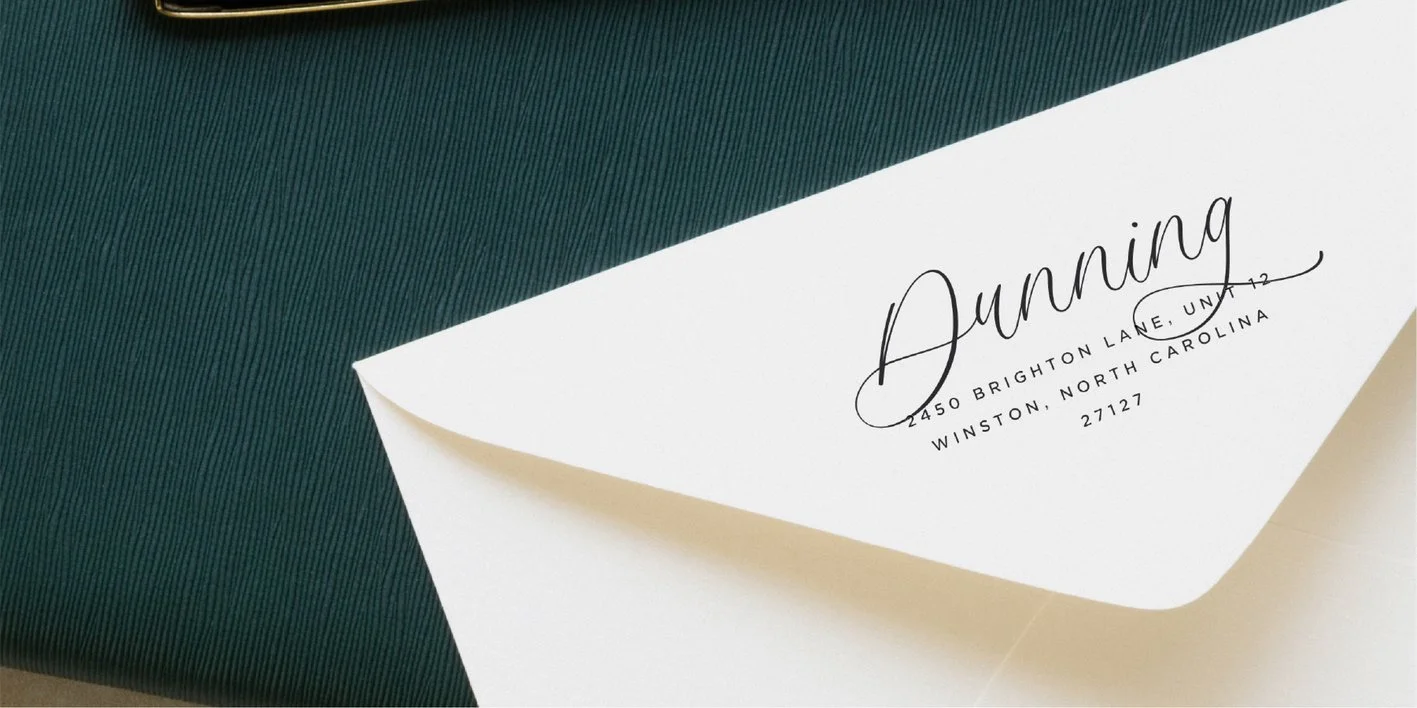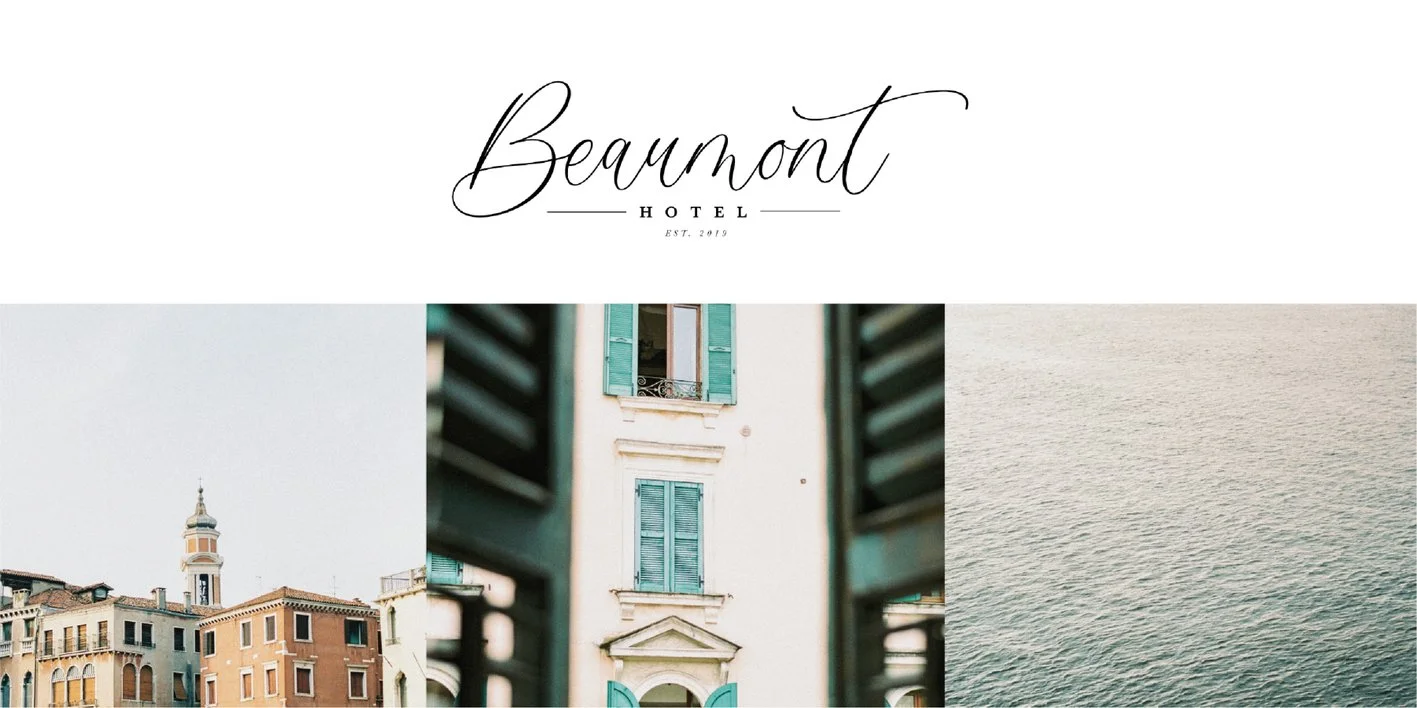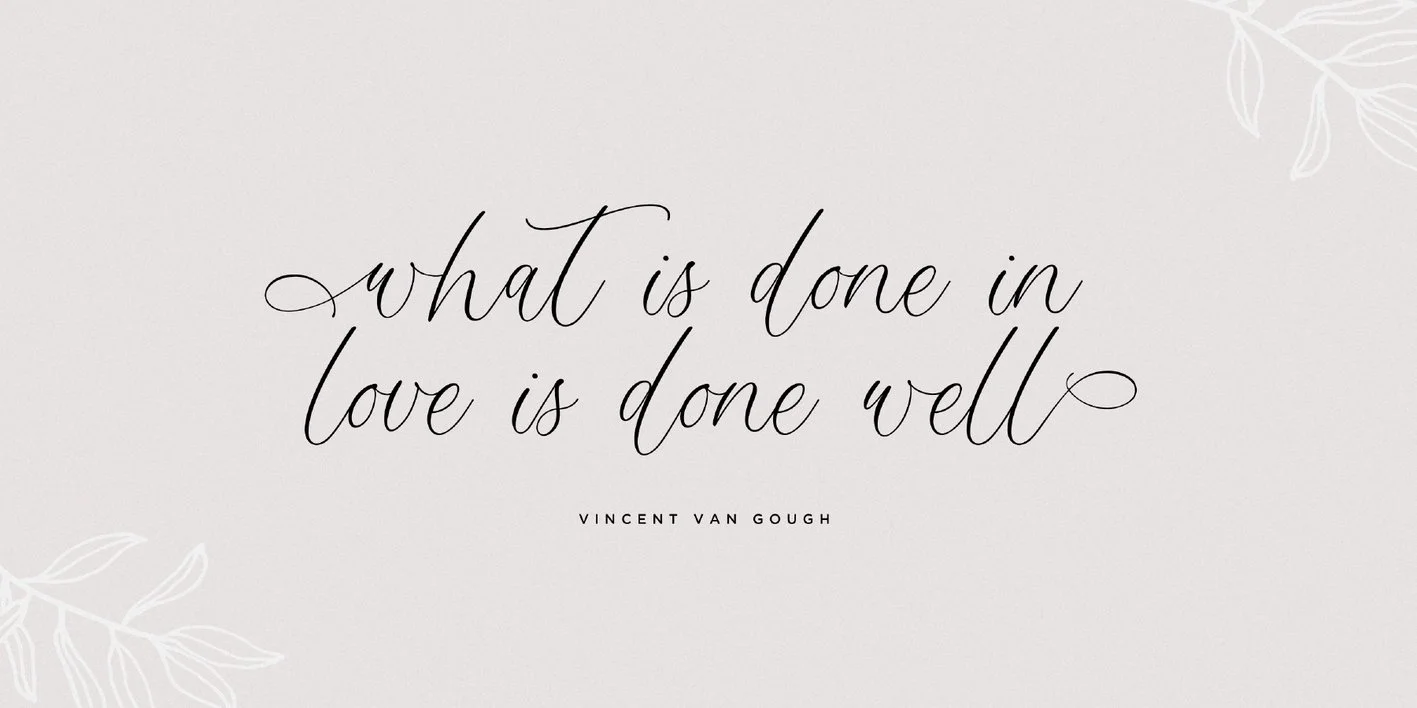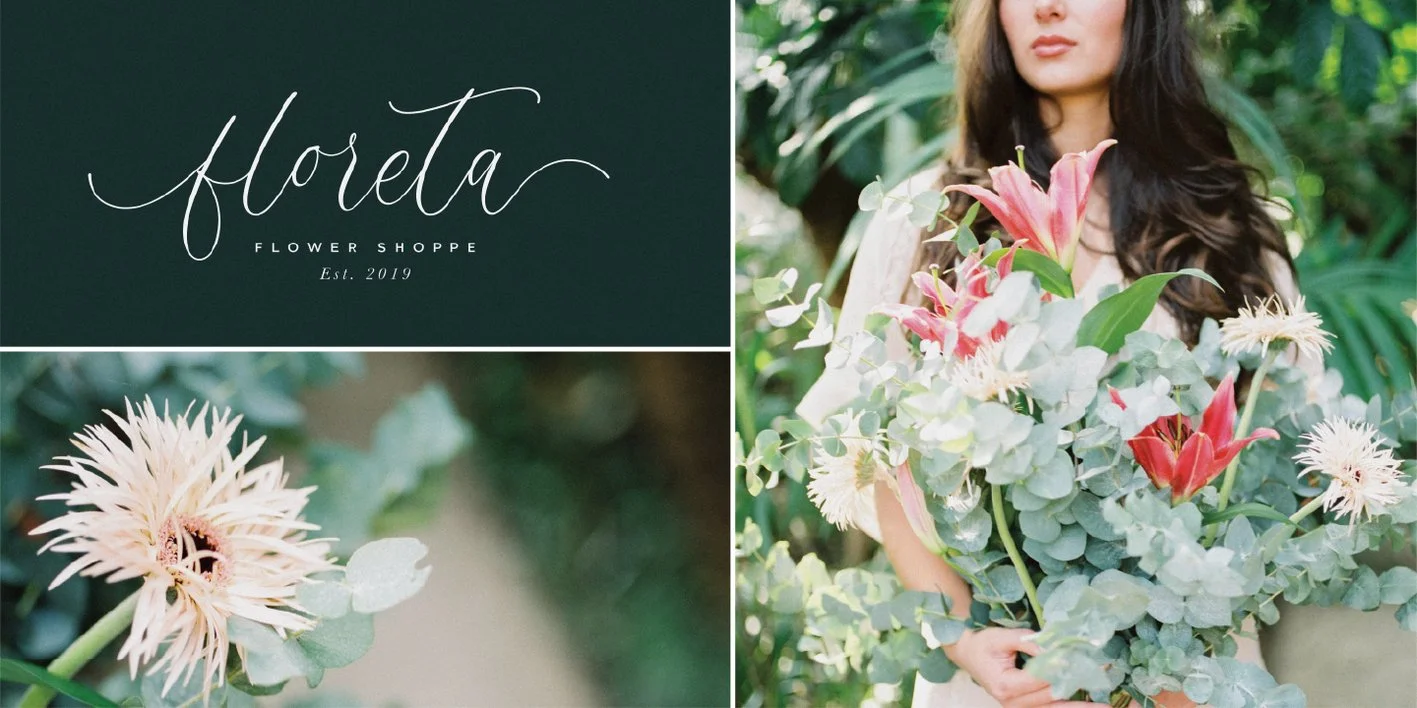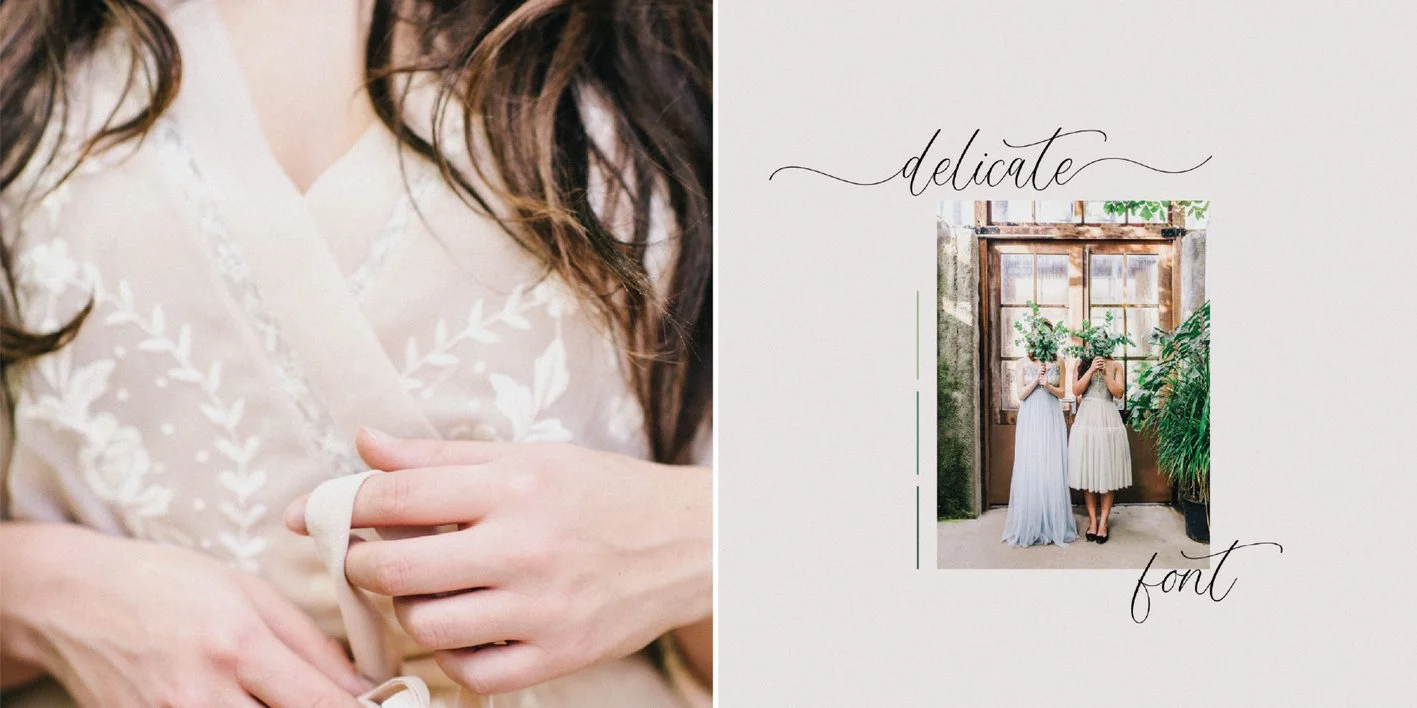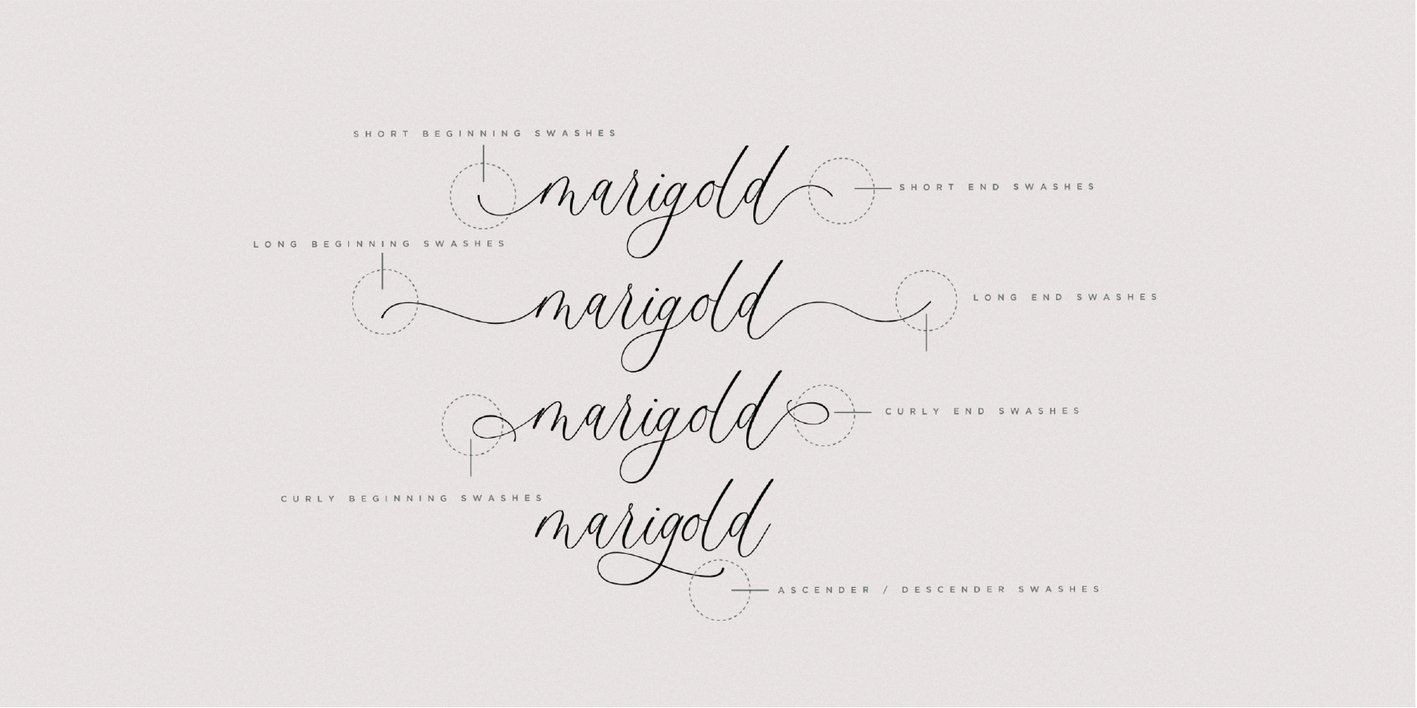
Monterey Script Font
When a design brief calls for both optical balance across all weights and immediate visual impact, type choices matter — Monterey Script answers that brief. The typeface brings an elegant, calligraphic sensibility to a broad range of creative disciplines, with consistent type colour across continuous text that holds up whether the work is print-first or screen-first.
In practice, Monterey Script proves particularly effective for greeting cards, web design, editorial layouts, logo design, social media graphics. Designers reaching for it find that the type decisions feel resolved rather than laboured — a useful quality when client timelines are tight.
The range of applications extends to environmental graphics, bridal materials, luxury stationery, boutique logos. That breadth is deliberate: the proportions and spacing were stress-tested across a wide range of mock briefs before the typeface was finalised.
Monterey Script sits comfortably alongside both classic and contemporary typefaces in multi-font hierarchies. It takes direction rather than competing for attention — a quality that experienced designers know is harder to find than it appears.
Freelance designers across print and digital disciplines find Monterey Script a reliable choice for projects that demand both personality and restraint. The design avoids the self-conscious quirkiness that dates quickly, settling instead for considered distinctiveness that holds up over time.